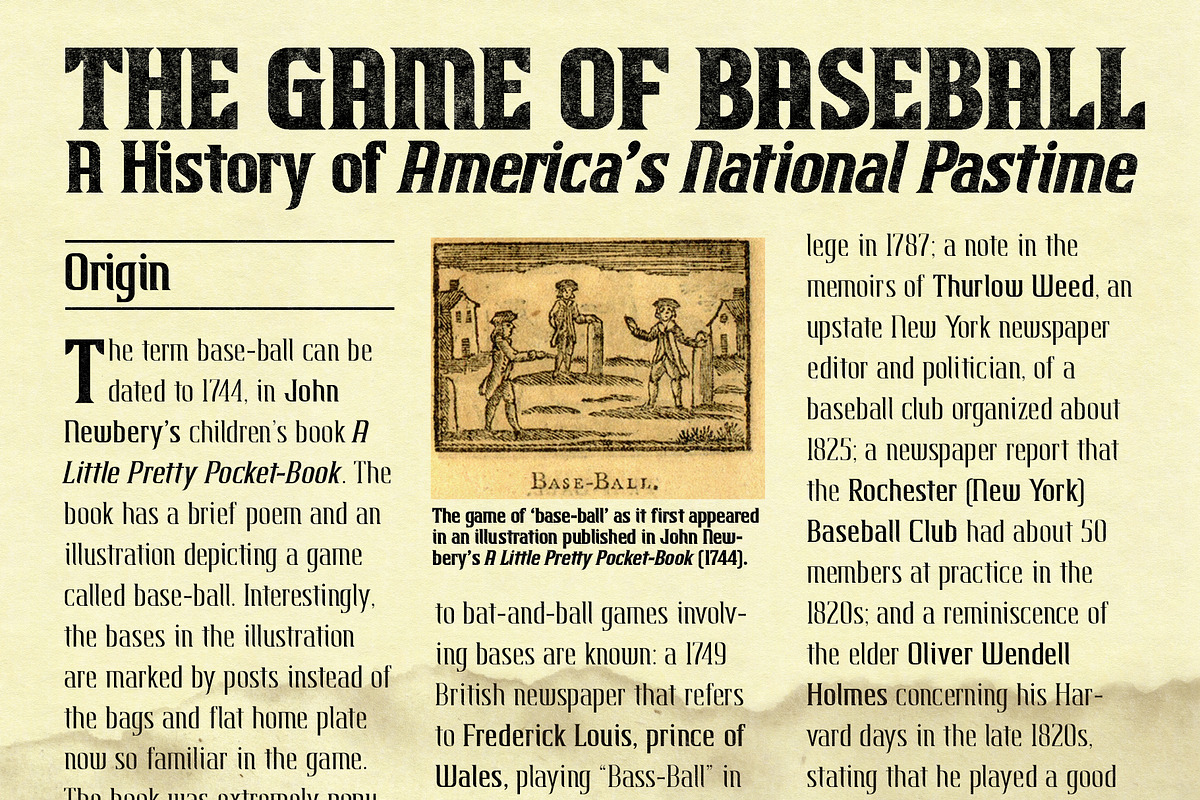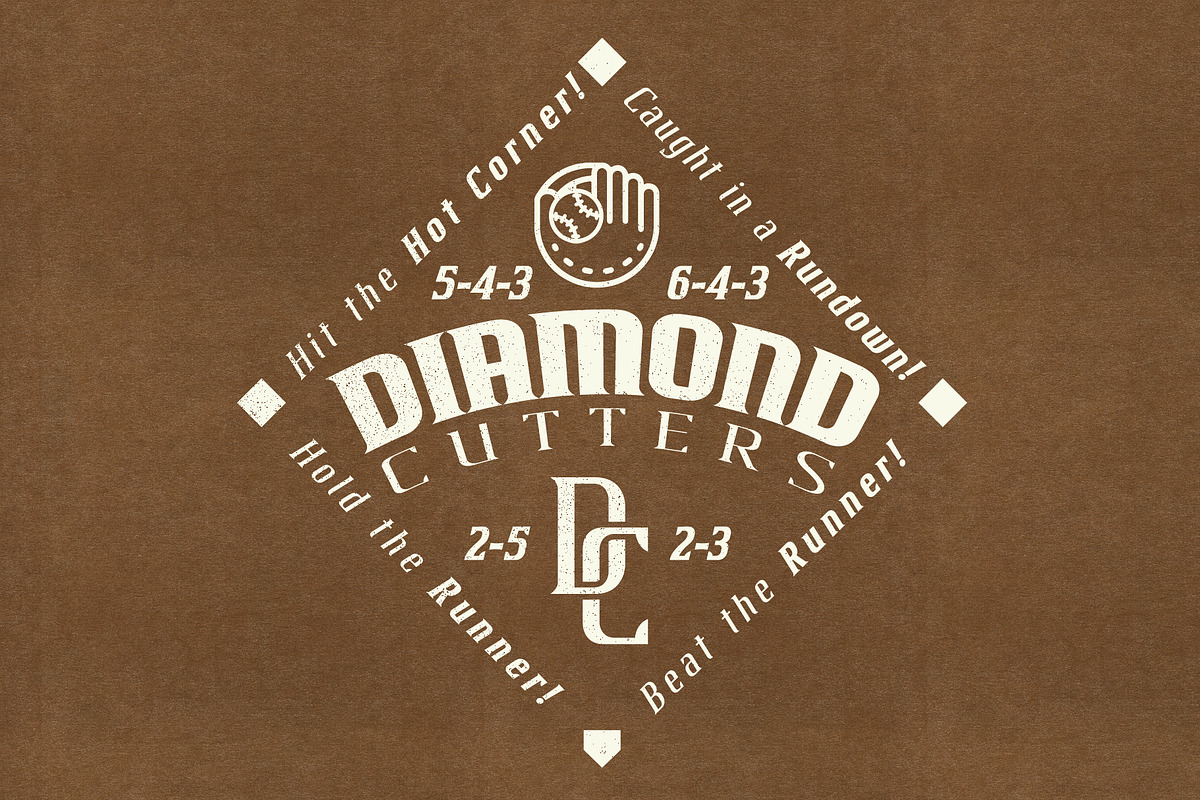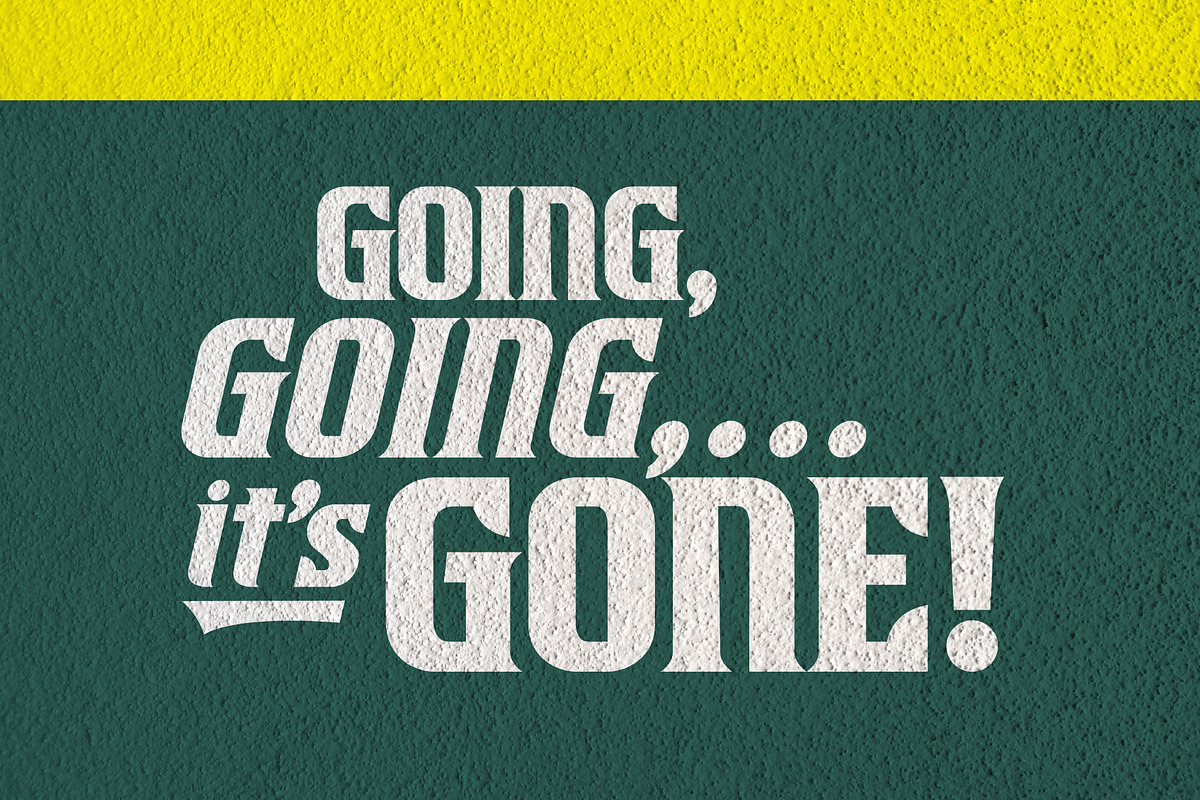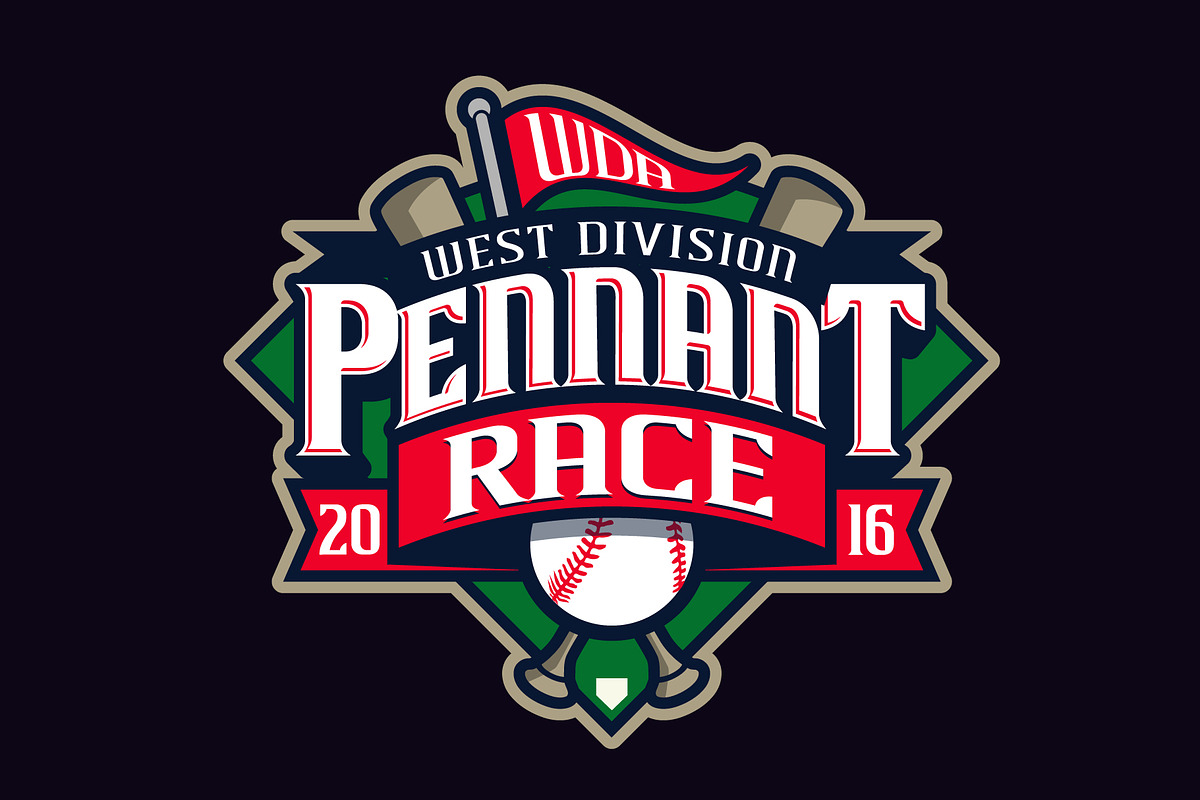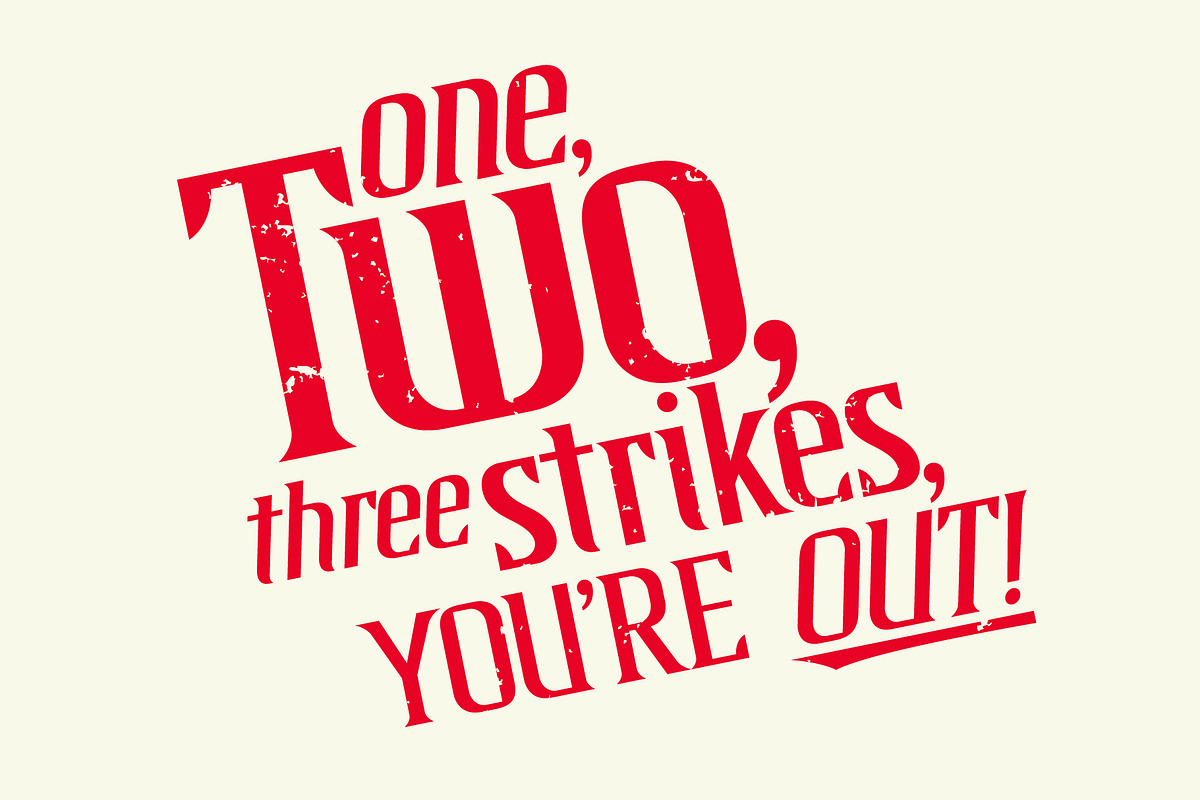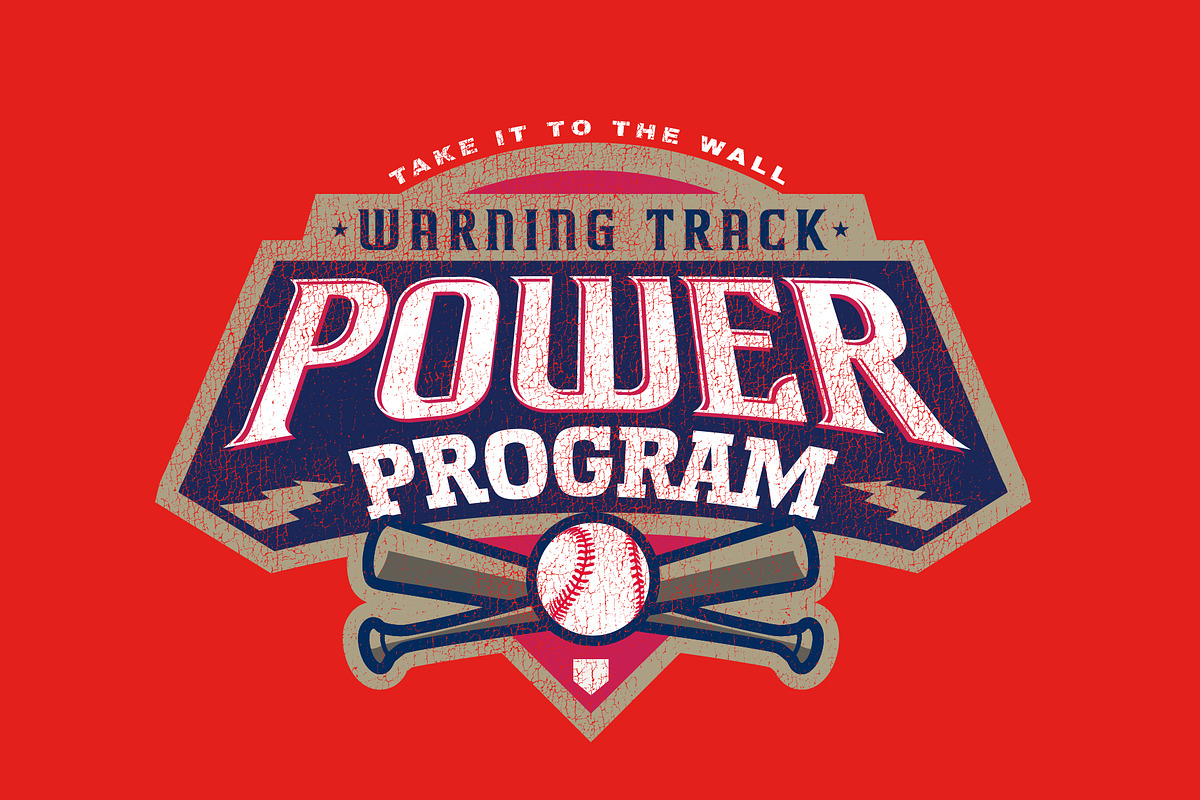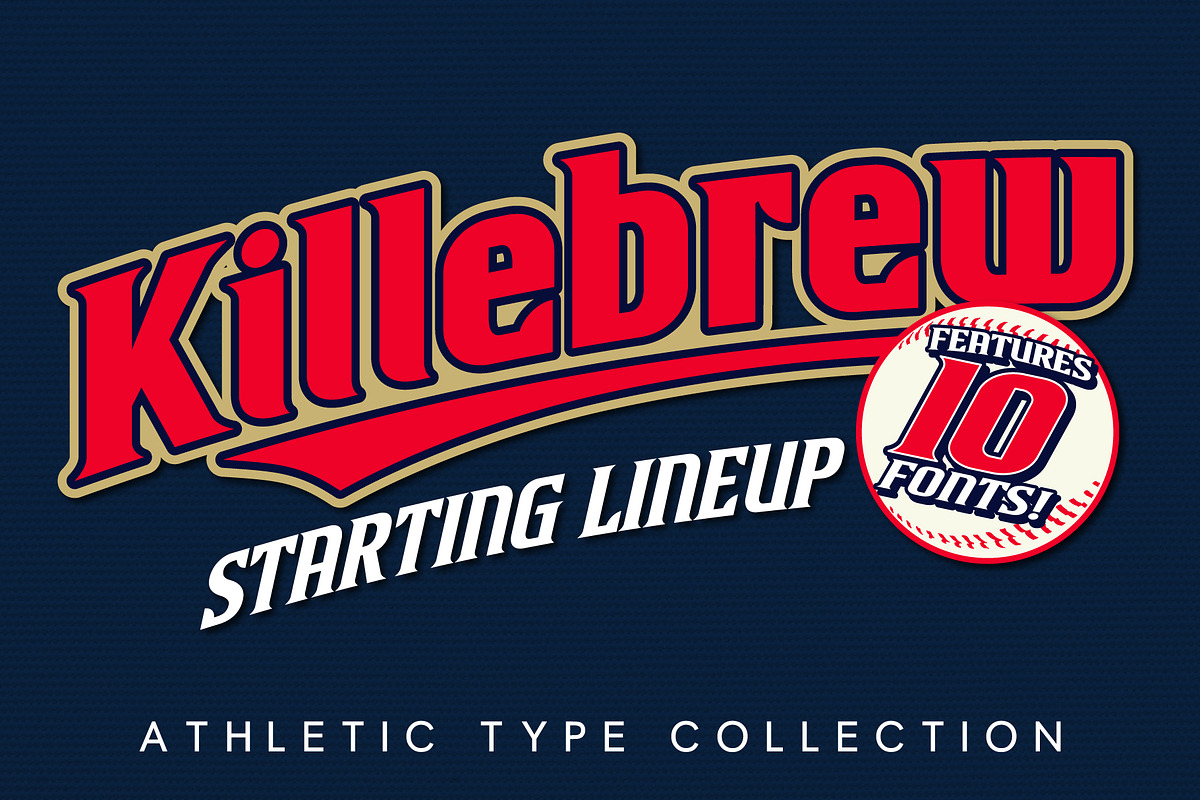
Killebrew | Athletic Type Collection
StudioWorks proudly presents the — K I L L E B R E W • S T A R T I N G • L I N E U P — a collection of ten hit typefaces sure to bring depth to your dugout!
The team's all here! Every member of the Killebrew club – from Walk to Homer — is featured in this bundle. An impressive assembly of fonts capable of anything you throw at them. Use for rulebooks, program covers, team apparel, scoreboard graphics and everything in between. The range of weights and styles will cover all your bases.
Here's your Starting Lineup:
- Killebrew Walk (regular) (https://creativemarket.com/sean.thorenson/7239071-Killebrew-Walk-Athletic-Typeface)
- Killebrew Bunt (italic) (https://creativemarket.com/sean.thorenson/7239071-Killebrew-Walk-Athletic-Typeface)
- Killebrew Single (regular) (https://creativemarket.com/sean.thorenson/2735361-Killebrew-Single-Athletic-Typeface)
- Killebrew Single Slide (italic) (https://creativemarket.com/sean.thorenson/2735361-Killebrew-Single-Athletic-Typeface)
- Killebrew Double (regular) (https://creativemarket.com/sean.thorenson/7243945-Killebrew-Double-Athletic-Typeface)
- Killebrew Double Slide (italic) (https://creativemarket.com/sean.thorenson/7243945-Killebrew-Double-Athletic-Typeface)
- Killebrew Triple (regular) (https://creativemarket.com/sean.thorenson/7247813-Killebrew-Triple-Athletic-Typeface)
- Killebrew Triple Slide (italic) (https://creativemarket.com/sean.thorenson/7247813-Killebrew-Triple-Athletic-Typeface)
- Killebrew Homer (regular) (https://creativemarket.com/sean.thorenson/5279463-Killebrew-Homer-Bold-Athletic-Type)
- Killebrew Homer Slide (italic) (https://creativemarket.com/sean.thorenson/5279463-Killebrew-Homer-Bold-Athletic-Type)